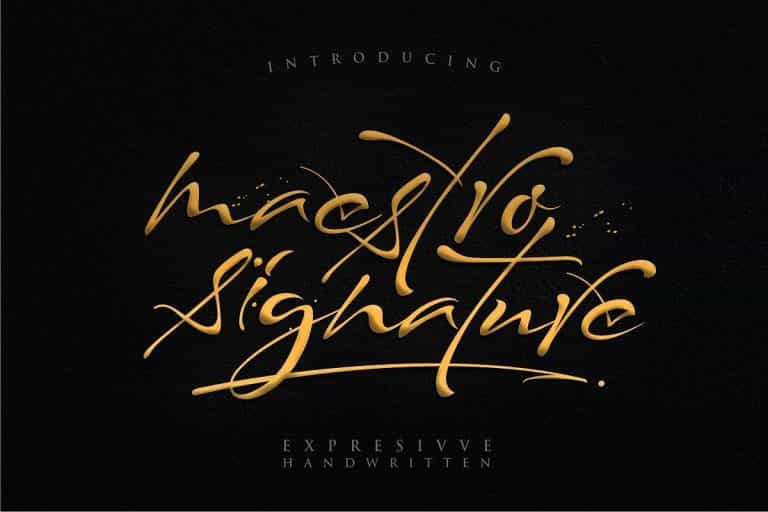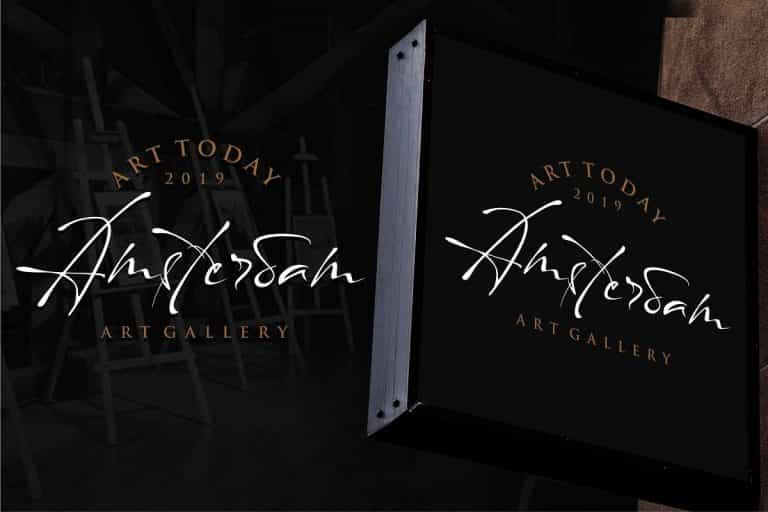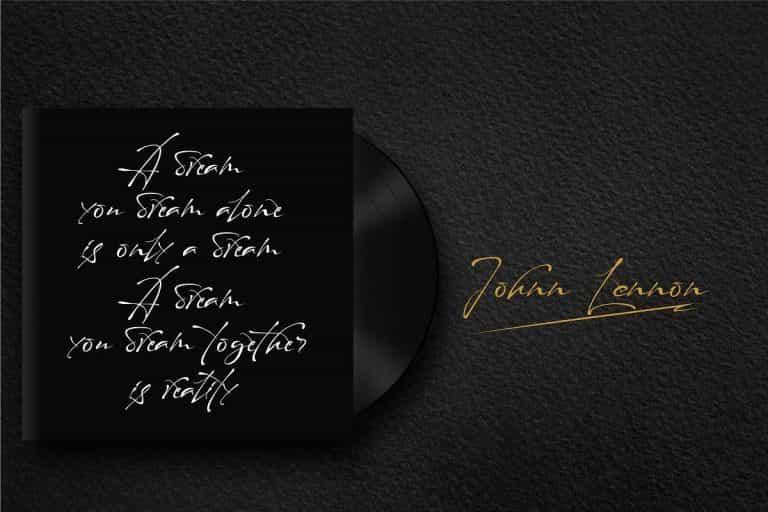
Discover Maestro Signature Font, part of the Calligraphy Handwritten collection—a versatile and unique font perfect for adding a personal touch to your projects. Download it for free and enjoy crafting designs with style, from invitations to social media posts. This font is available exclusively for personal use, giving you the freedom to create without limits. Unlock your creativity with Maestro Signature Font today!
Introducing Maestro Font! Maestro Signature Font is a notable script calligraphy system inspired by luxury and glam. This typeface can be used for creating impressive social media posts and headlines..